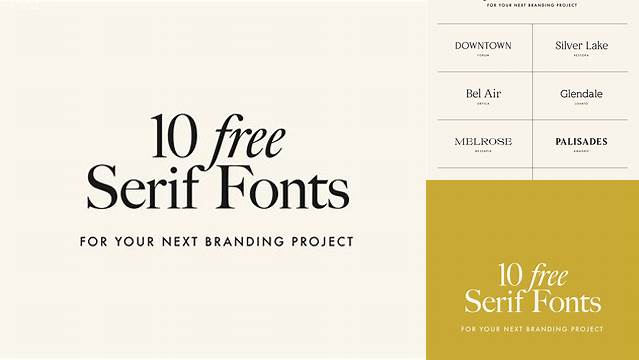
Serif Fonts: Free Downloads For Your Next Project
Introduction to Serif Fonts
Hey guys! Let's dive into the world of serif fonts. These fonts are characterized by the small decorative strokes, or serifs, at the end of each character. Serif fonts are often associated with tradition, authority, and readability, making them a popular choice for a wide range of design projects. From books and newspapers to websites and logos, serif fonts bring a touch of elegance and sophistication. The classic appearance of serif fonts makes them the go-to choice for projects aiming for a timeless look. Knowing which serif fonts to download for free can significantly enhance your design capabilities without breaking the bank. With various options available, you can find the perfect free serif font to match your creative vision and professional needs. Serif fonts are not just about aesthetics; they also influence how readers perceive your content, so choosing wisely is key. Serif fonts are versatile and come in various styles, from classic to modern, each with a unique personality. So, whether you're designing a book, creating a website, or crafting a logo, understanding the nuances of serif fonts will help you make a significant impact. Plus, with free downloads readily accessible, you can experiment and find the perfect fit for your project without any financial commitment.
Why Choose Serif Fonts?
When it comes to selecting the right font for your project, serif fonts offer a distinct advantage. Their inherent readability makes them ideal for long-form content, such as books and articles. The serifs guide the reader’s eye along the text, reducing strain and improving comprehension. Additionally, serif fonts evoke a sense of tradition and authority, which can be particularly useful in branding and corporate communications. The professional look of serif fonts makes them suitable for formal documents and presentations. Free serif fonts provide an accessible way to enhance the visual appeal and readability of your work. The availability of free serif font downloads means you can experiment with different styles without incurring any costs. Serif fonts also contribute to a sense of trustworthiness and stability, which can be valuable in various contexts. Whether you're designing a website or creating print materials, serif fonts can elevate the overall impact of your message. Opting for serif fonts can create a harmonious reading experience, leading to better engagement and understanding. It's about blending functionality with style to create a lasting impression.
Popular Serif Font Styles
The world of serif fonts is vast and varied, encompassing several distinct styles. Each style has its unique characteristics and is suitable for different applications. Old Style fonts, such as Garamond and Caslon, are known for their classic, elegant appearance and are often used in book publishing. Transitional fonts, like Times New Roman, offer a more modern look while maintaining excellent readability. Slab Serif fonts, also known as Egyptian fonts, have thick, block-like serifs and are often used in headlines and advertising. Modern fonts, such as Didot and Bodoni, feature high contrast between thick and thin strokes, making them ideal for high-end design projects. The versatility of serif fonts allows you to choose the perfect style for any project. Understanding the differences between these styles is key to making informed design decisions. Free serif font styles are readily available, making it easy to experiment and find the perfect fit. Serif fonts offer a rich tapestry of options for enhancing your visual communication. By exploring different styles, you can add depth and personality to your designs, creating a memorable impact.
How to Choose the Right Serif Font
Choosing the right serif font can significantly impact the success of your design project. Consider the purpose and context of your design. For long-form text, prioritize readability with fonts like Garamond or Times New Roman. For headlines and branding, you might opt for a bolder or more distinctive font. Also, consider the tone and message you want to convey. Serif fonts can evoke feelings of tradition, authority, or elegance, so choose one that aligns with your brand's identity. Pay attention to the font's legibility, ensuring that it remains clear and readable in various sizes and formats. The best free serif fonts are those that balance aesthetics with functionality. Experiment with different fonts and see how they look with your content. Don't be afraid to mix and match fonts, but ensure they complement each other. Serif fonts can enhance your design, but only if you choose wisely. By considering these factors, you can select a font that not only looks good but also effectively communicates your message.
Using Serif Fonts in Web Design
Serif fonts are a popular choice for web design, offering a classic and professional look. When using serif fonts on the web, ensure they are legible across different devices and screen sizes. Use CSS to control font size, line height, and letter spacing to optimize readability. Google Fonts provides a wide range of free serif fonts that are optimized for web use. Consider using font-weight variations to add emphasis and visual interest. However, avoid using too many different fonts, as this can create a cluttered and unprofessional appearance. The versatility of serif fonts makes them suitable for various web design styles. They can be used for body text, headings, and even logos. Ensure the font aligns with your website's overall design and brand identity. Free serif font downloads offer a cost-effective way to enhance your website's typography. Serif fonts can add a touch of elegance and sophistication to your web design, making your content more engaging and visually appealing.
Serif Fonts for Print vs. Digital
Serif fonts behave differently in print compared to digital media. In print, serif fonts are generally more readable due to the high resolution and tactile nature of the medium. The serifs help guide the eye and improve comprehension, especially in long-form text. However, on digital screens, factors like screen resolution and rendering can affect legibility. Ensure that the serif fonts you choose are optimized for digital use, with clear and crisp rendering. Use CSS to adjust font properties like size, line height, and letter spacing to enhance readability. Free serif fonts are available for both print and digital projects, but it's essential to test them on different devices and platforms. Consider the specific requirements of each medium when selecting a font. The adaptability of serif fonts makes them a valuable asset for any design project. Serif fonts can create a consistent and professional look across both print and digital media, reinforcing your brand identity and messaging.
Pairing Serif Fonts with Other Fonts
Pairing serif fonts with other fonts can create visually appealing and balanced designs. A common strategy is to pair a serif font for body text with a sans-serif font for headings. This combination provides contrast and visual interest while maintaining readability. When pairing fonts, consider their visual weight, style, and overall harmony. Ensure that the fonts complement each other rather than clash. Free serif fonts can be paired with a wide range of other fonts to create unique and engaging designs. Experiment with different combinations to find what works best for your project. The art of font pairing is about creating a cohesive and visually pleasing aesthetic. Serif fonts can be combined with sans-serif, script, or display fonts to achieve different effects. The goal is to enhance readability and visual appeal, creating a design that is both functional and aesthetically pleasing.
The History and Evolution of Serif Fonts
The history of serif fonts is rich and fascinating, dating back to ancient Rome. The earliest serif fonts were created by stone carvers who added small finishing strokes to the ends of letters for aesthetic appeal and to neaten the edges. Over time, these serifs became an integral part of the letterform, evolving into various styles and designs. The invention of the printing press in the 15th century led to the widespread adoption of serif fonts in books and other printed materials. Today, serif fonts continue to be a popular choice for a wide range of design projects. Understanding the historical context of serif fonts can provide valuable insights into their design and usage. Free serif fonts are a modern adaptation of these historical designs, making them accessible to designers and creatives around the world. Serif fonts have evolved and adapted to changing technologies and design trends, remaining a timeless and versatile choice for visual communication.
Common Mistakes to Avoid When Using Serif Fonts
When using serif fonts, it's essential to avoid common mistakes that can detract from their effectiveness. Overusing serif fonts can create a cluttered and overwhelming design. Avoid using too many different serif fonts in the same project, as this can create visual disharmony. Ensure that the serif fonts you choose are legible and readable, especially in smaller sizes. Avoid using decorative or overly stylized serif fonts for long-form text, as this can strain the reader's eyes. Free serif fonts should be used judiciously, considering their suitability for the specific project. Serif fonts can enhance your design, but only if used correctly. By avoiding these common mistakes, you can ensure that your serif fonts contribute to a polished and professional aesthetic.
Ethical Considerations When Using Free Serif Fonts
When using free serif fonts, it's crucial to consider ethical considerations. Always check the font license to ensure that you are using it in compliance with the terms and conditions. Give credit to the font designer when required. Avoid using free fonts in ways that could harm the designer's reputation or income. Free serif fonts should be used responsibly and ethically. Serif fonts are created by designers who deserve respect and recognition. The ethical considerations when using free serif fonts are important. The guidelines for responsible use of free serif fonts include checking the license, giving credit, and avoiding harmful uses.